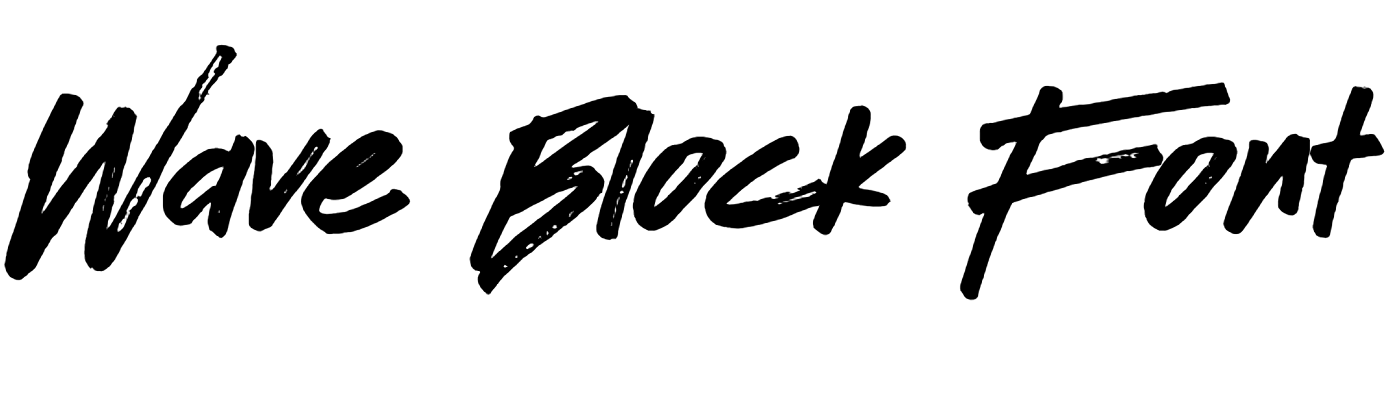
Wave Block
Wave Block is a script font created by Riyadh Rahman. It has that hand-lettered, flowing feel people look for when regular type seems too stiff. You can download it for free and test it with your own words in the preview above.
- Designer: Riyadh Rahman
- Extra characters: 15 copy-and-paste alternates (Private Use Area)
What You Can Type With Wave Block
Wave Block covers the full alphabet in upper and lowercase, plus all ten numbers, so you can set names, dates and prices without switching fonts. Everyday marks like &, !, ? and @ are there too. Thanks to its accented letters, it also works for Spanish, French, German, Portuguese and Italian, not just English.
How to Use the Alternate Letters in Wave Block
Where Wave Block Works Best
Designers usually reach for fonts like Wave Block when they're making wedding invitations, logos and signature-style headings. Its lowercase letters are small compared to the capitals, so set it a size or two bigger than usual. Script fonts read best in short bursts, so keep it to names, titles and one-line quotes. Skip all caps: script capitals are drawn to start a word, not to fill one.
Who designed Wave Block font?
Does Wave Block support accented letters?
Yes. Wave Block includes the accented letters needed for Spanish, French, German, Portuguese and Italian, so it works for more than just English.